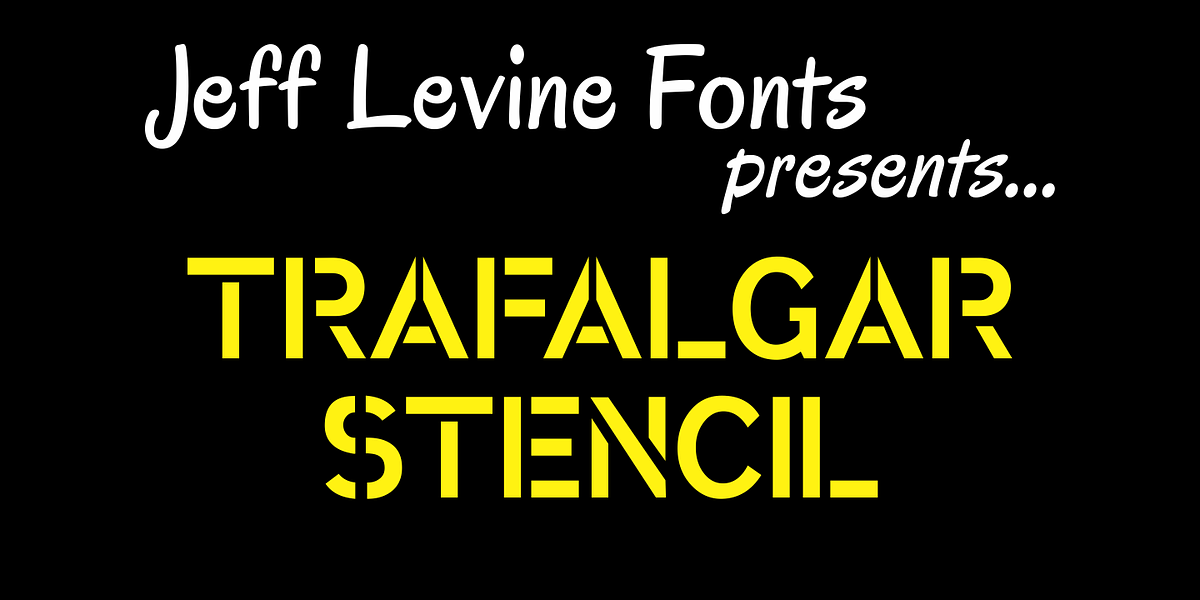
Trafalgar Stencil JNL
Trafalgar Stencil JNL gets its inspiration from a set of lettering stencils manufactured by Reese and Sons in Great Britain during the 1950s as does its counterpart, British Stencil JNL.